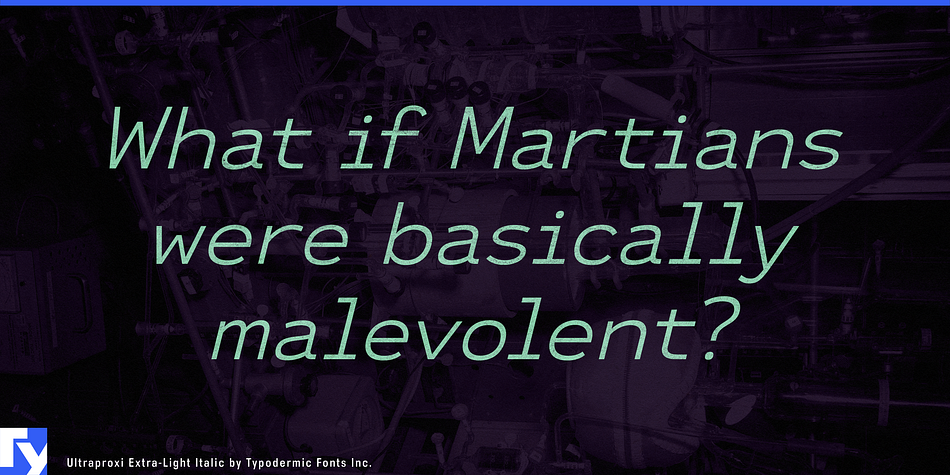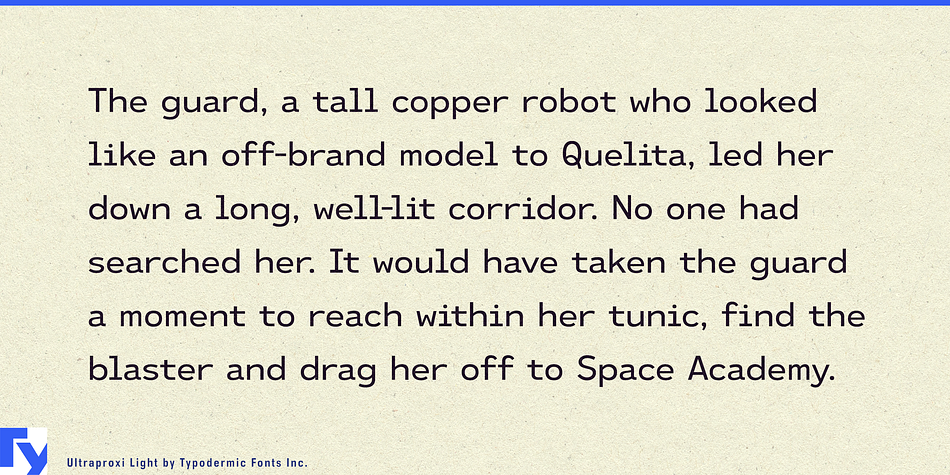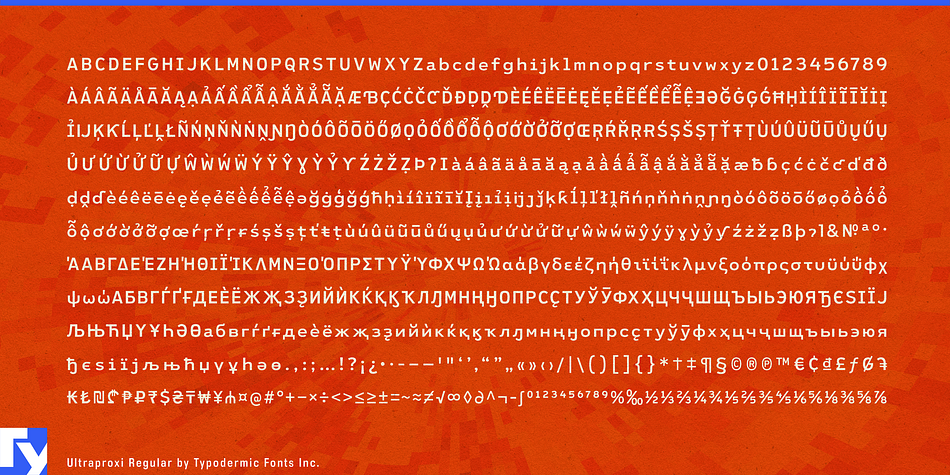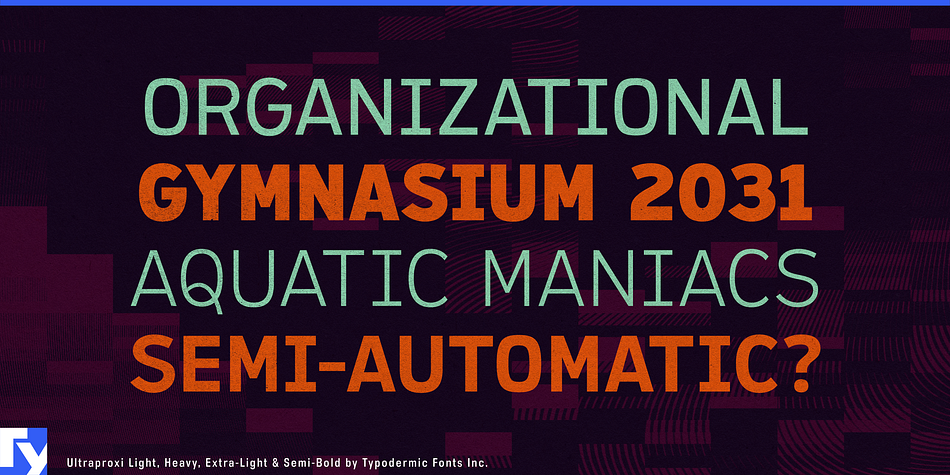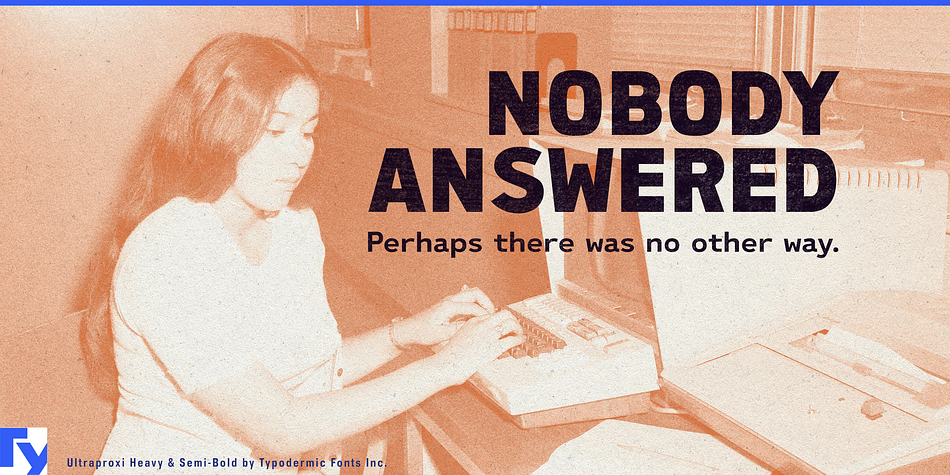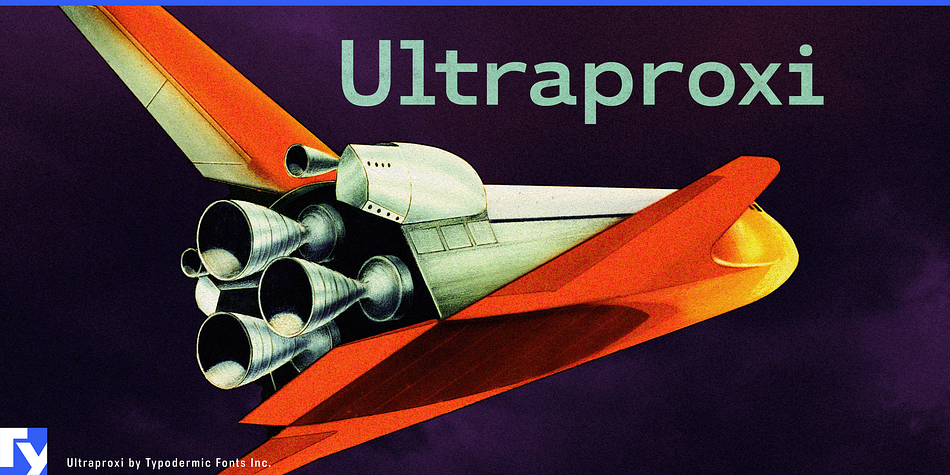
Designed by Ray Larabie, Ultraproxi is a typewriter and display sans font family. This typeface has twelve styles and was published by Typodermic Fonts Inc.
Ultraproxi is an austere, technical sans-serif typeface. Visual cues were taken from high speed computer printers from the 1950s to 1970s. You’ve probably seen this type of printing on old driver’s licenses or magazine subscription labels. One of the more well known, early line printers was the IBM 1403 chain printer. Metal type slugs were linked in a chain which rapidly whirled over an ink ribbon. On the back of the page, a succession of electromagnetic hammers smacked the paper when the appropriate character lined up. The hammers struck quickly but that fast-moving chain of slugs caused some horizontal smearing. Those machines were lightning fast; later models could print over 1000 lines per minute. This printing system required a sturdy typeface design which was with the catalyst for Ultraproxi.
Ultraproxi is based on a semi-monospace concept. It has some of the characteristics of monospaced type without actually being monospaced. Your readers will perceive it as having a technical demeanor but you won’t have to deal with the downsides of working with real monospaced type: uneven spacing and fewer words to the line. Ultraproxi includes 6 weights and italics. Almost all current Latin based languages are supported, including Cyrillic languages and Greek.